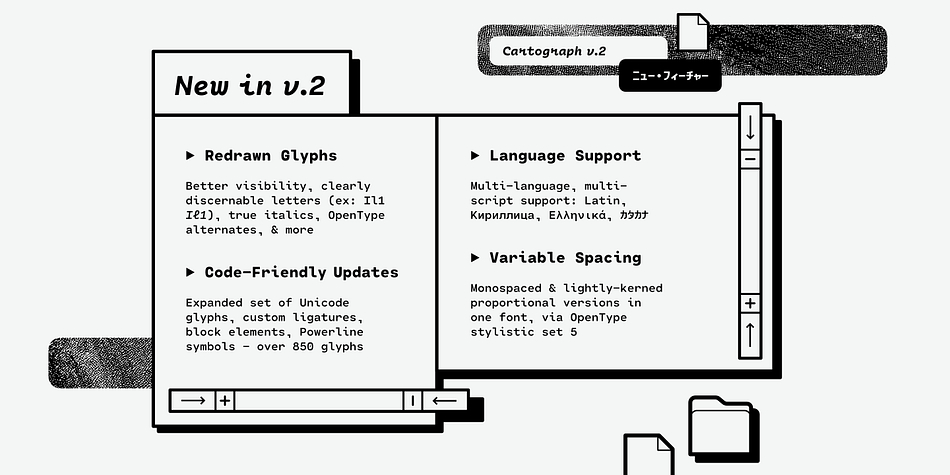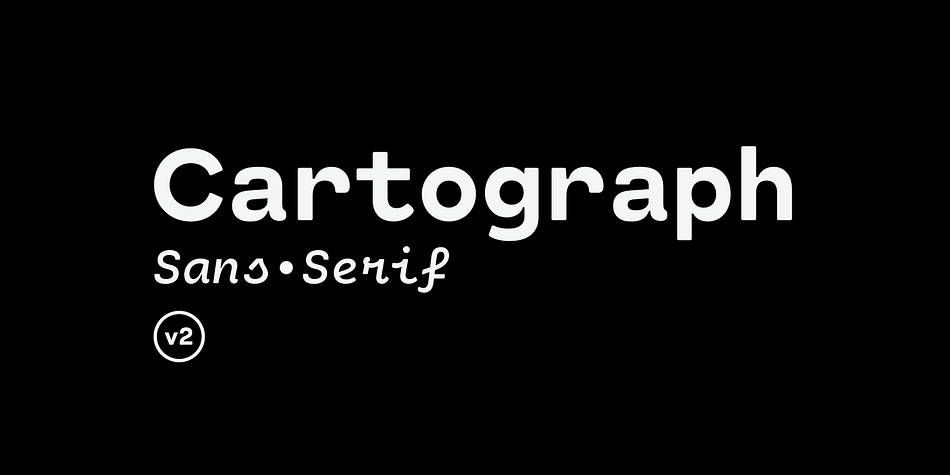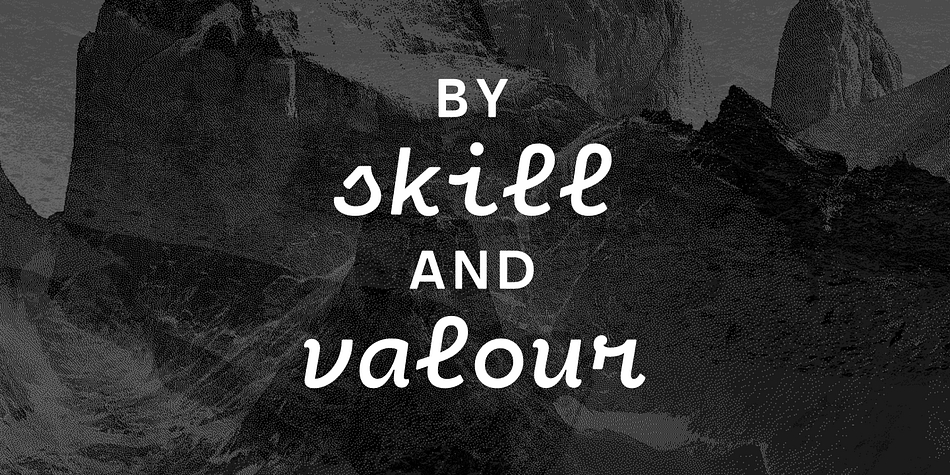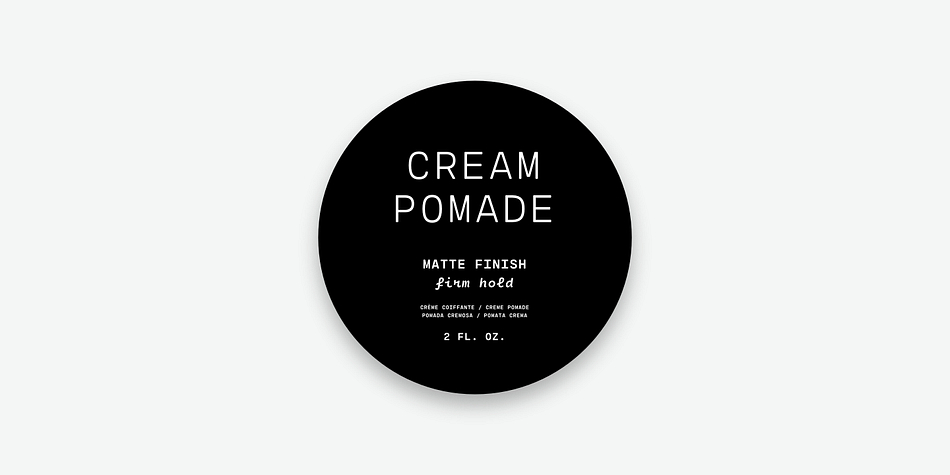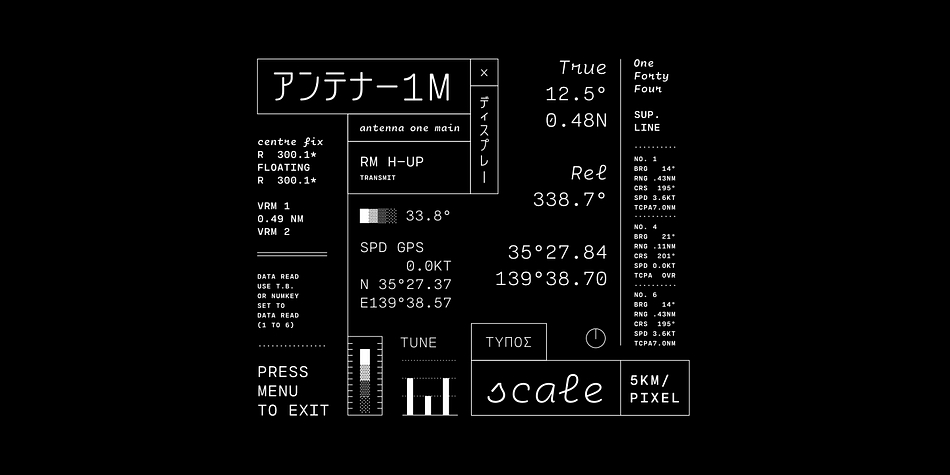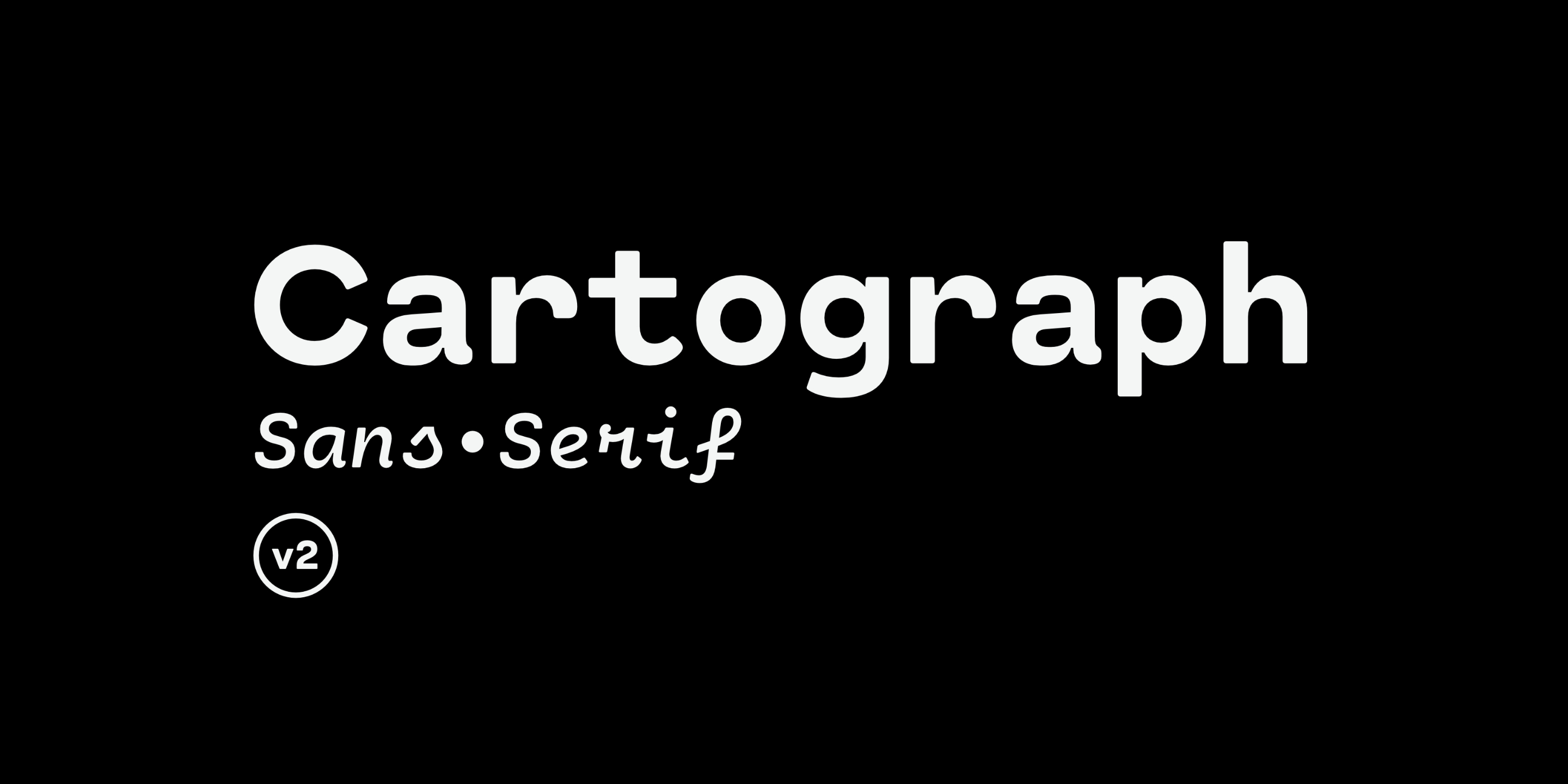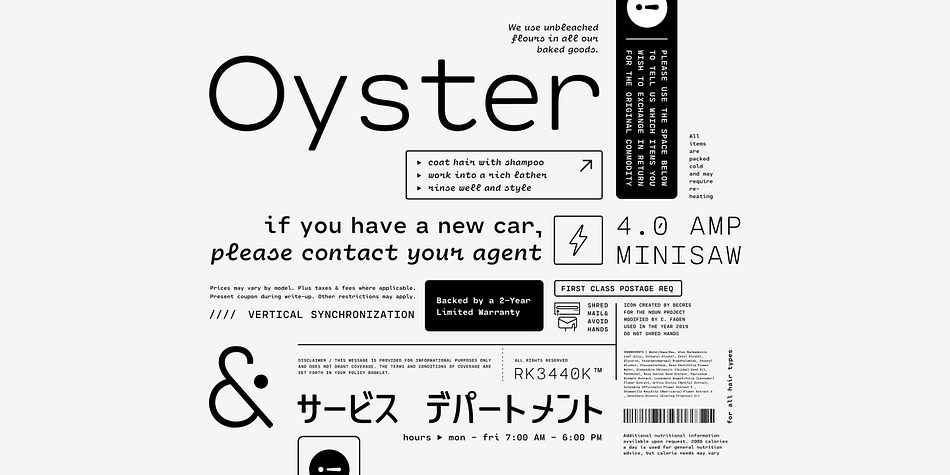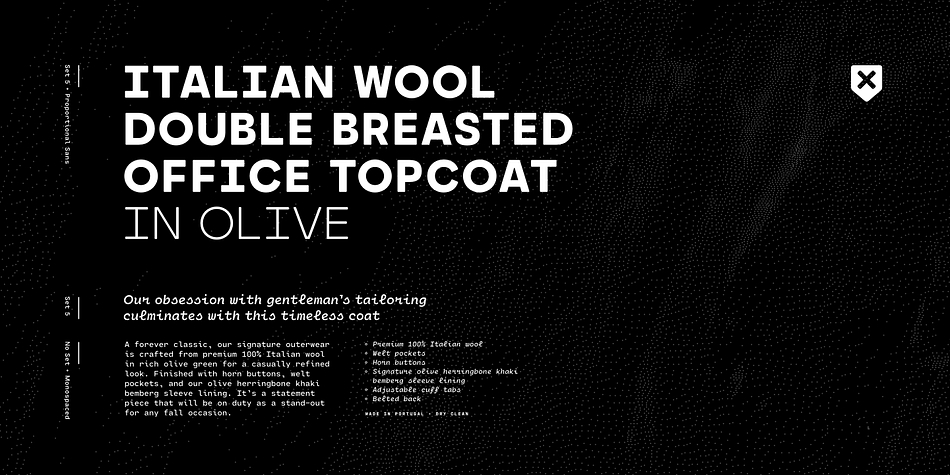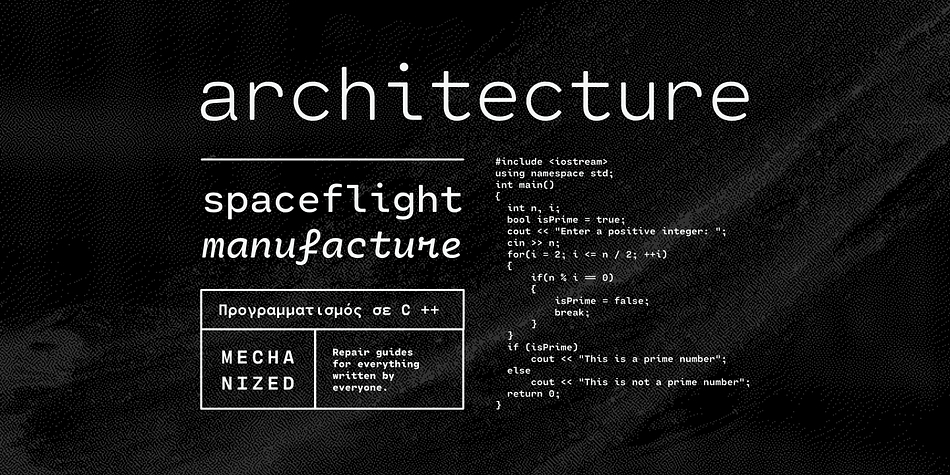
Designed by Connary Fagen, Cartograph CF is a sans serif font family. This typeface has sixteen styles and was published by Connary Fagen Type Design.
A monospaced typeface with character and warmth, Cartograph is a handsome font family featuring a lush, cursive italic, code-friendly ligatures, and a proportional set accessible via OpenType. A tribute to the utilitarian beauty of terminals and typewriters, Cartograph excels in both code and prose.